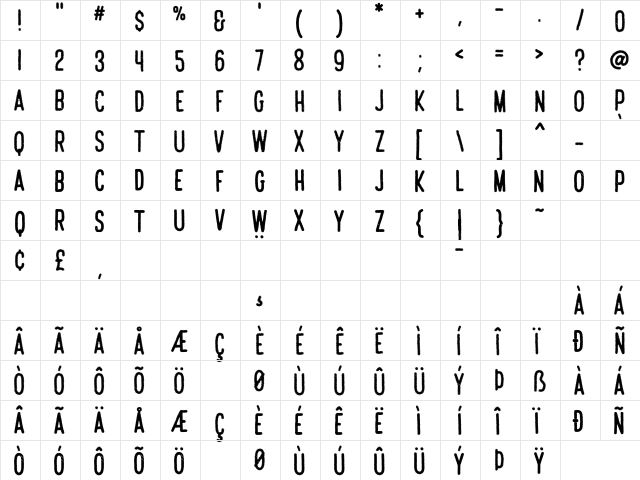
CafΠFranͯise Regular
Design Context for CafΠFranͯise Typeface
CafΠFranͯise is a composed and adaptable typeface that performs quietly and consistently across a wide range of design contexts.